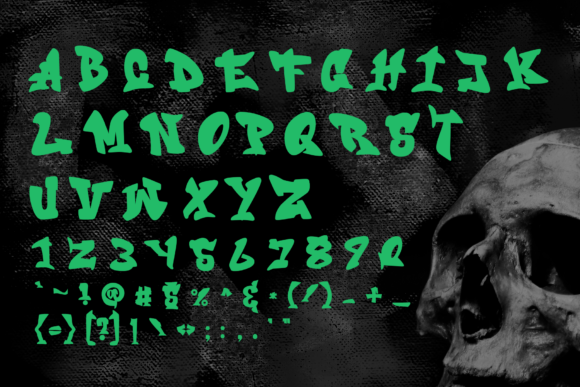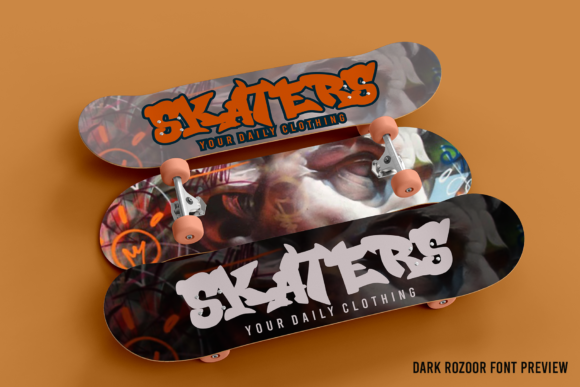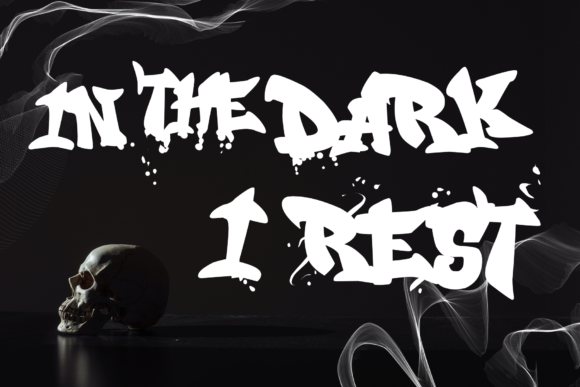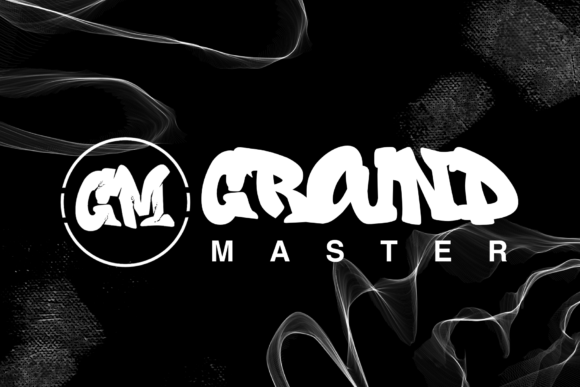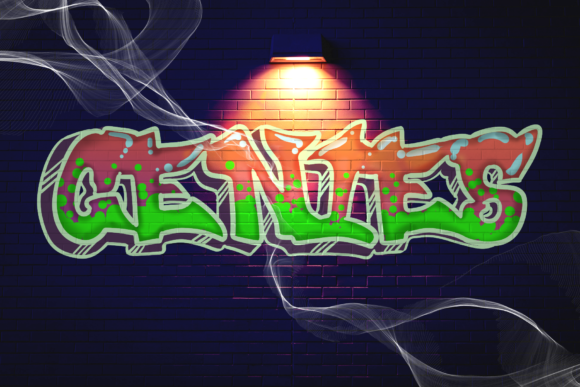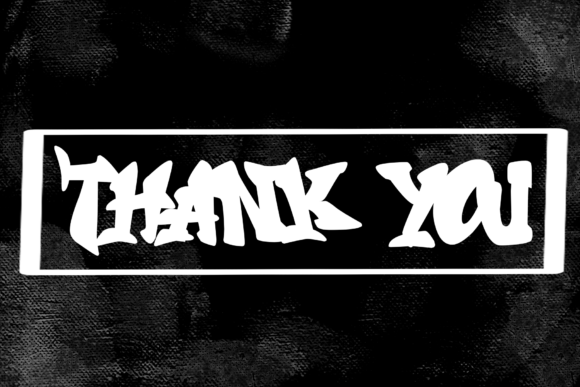
Introduction to Dark Razoor Font
Dark Razoor is a cool, urban styled display font.
It is very suitable for use in various media such as; packaging, logos, labels, posters, shirt designs, bulletins, typography, and many other media creations, especially those benefiting from a graffiti look .
Key Features of Dark Razoor Font